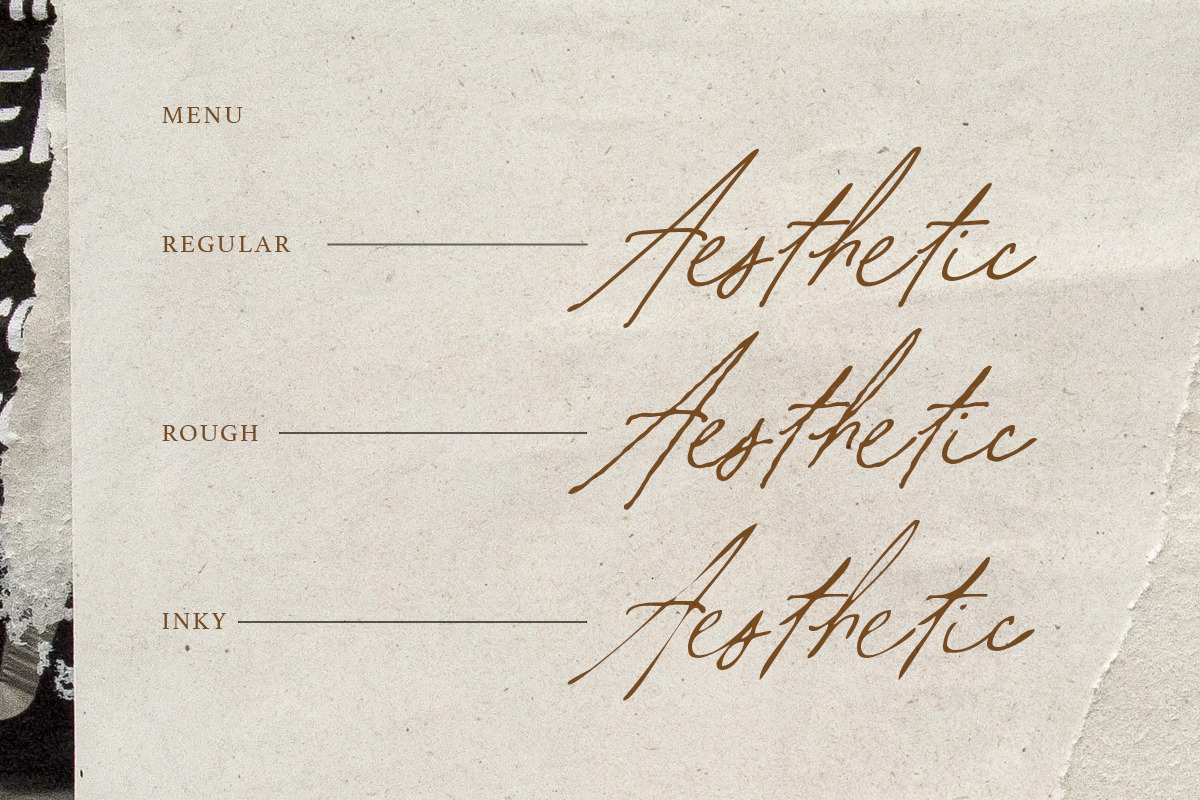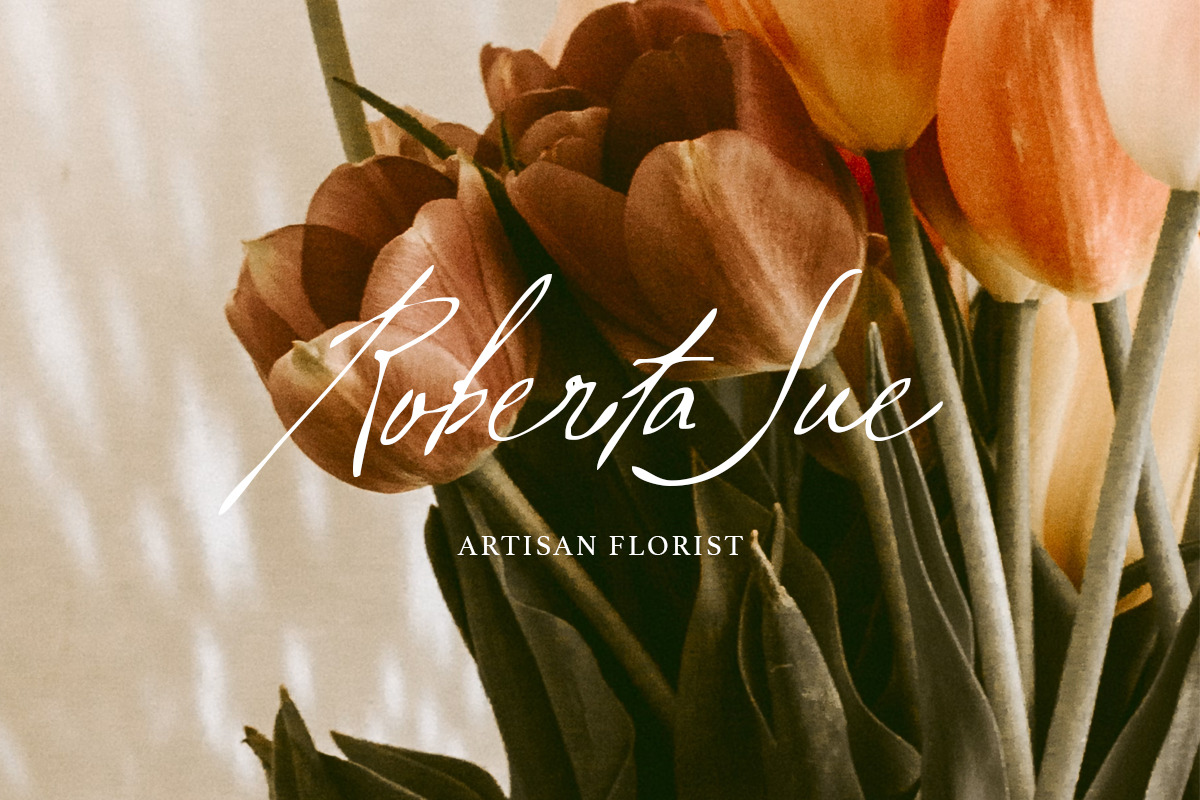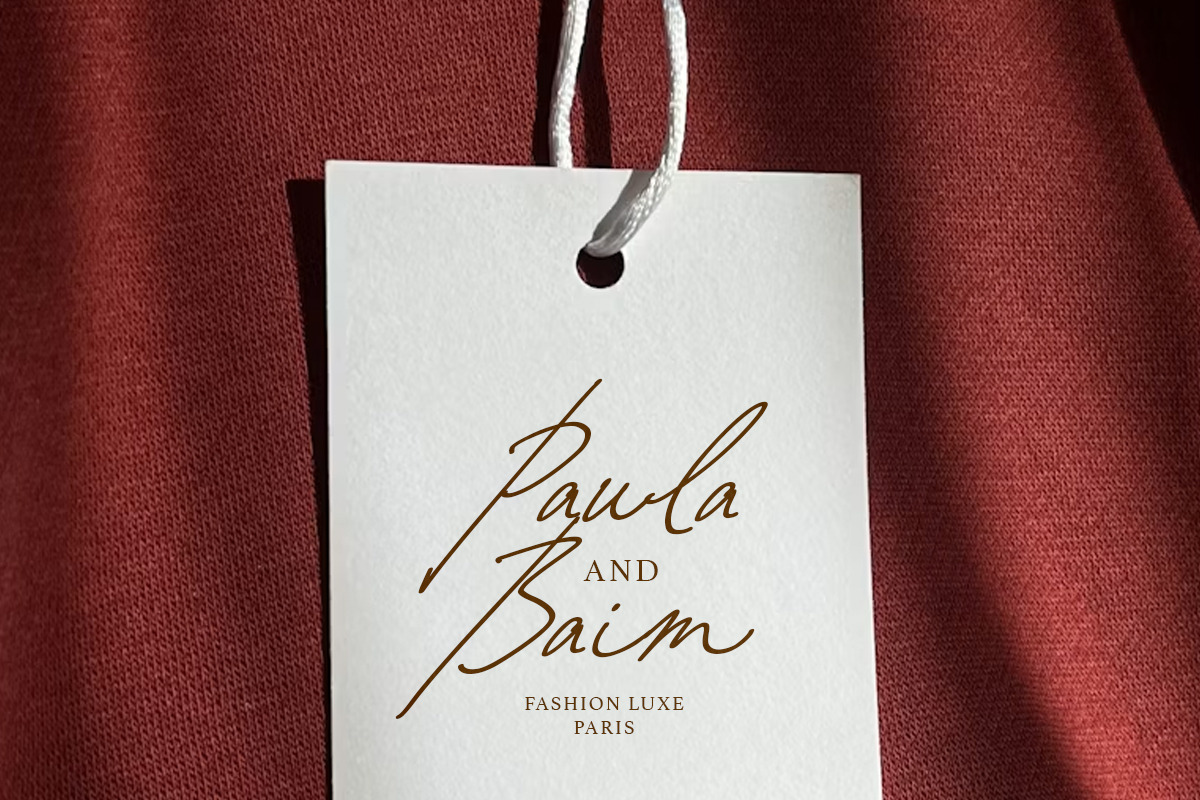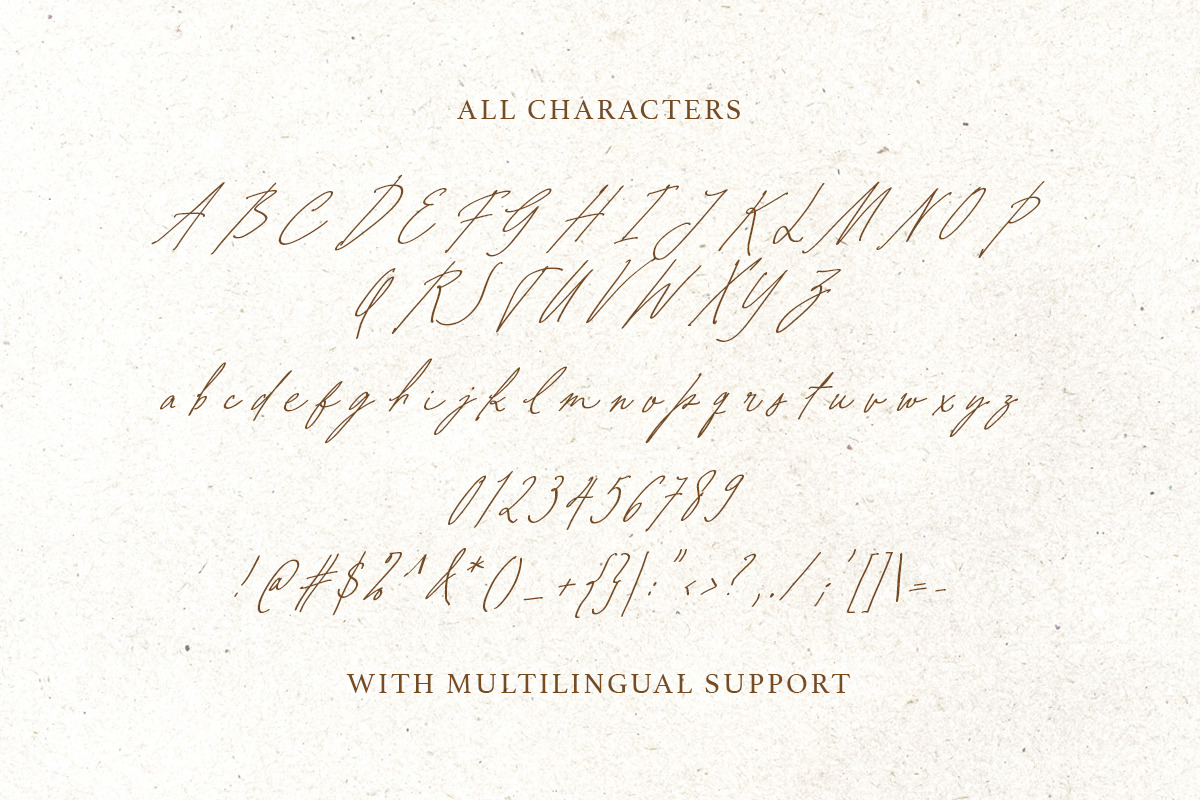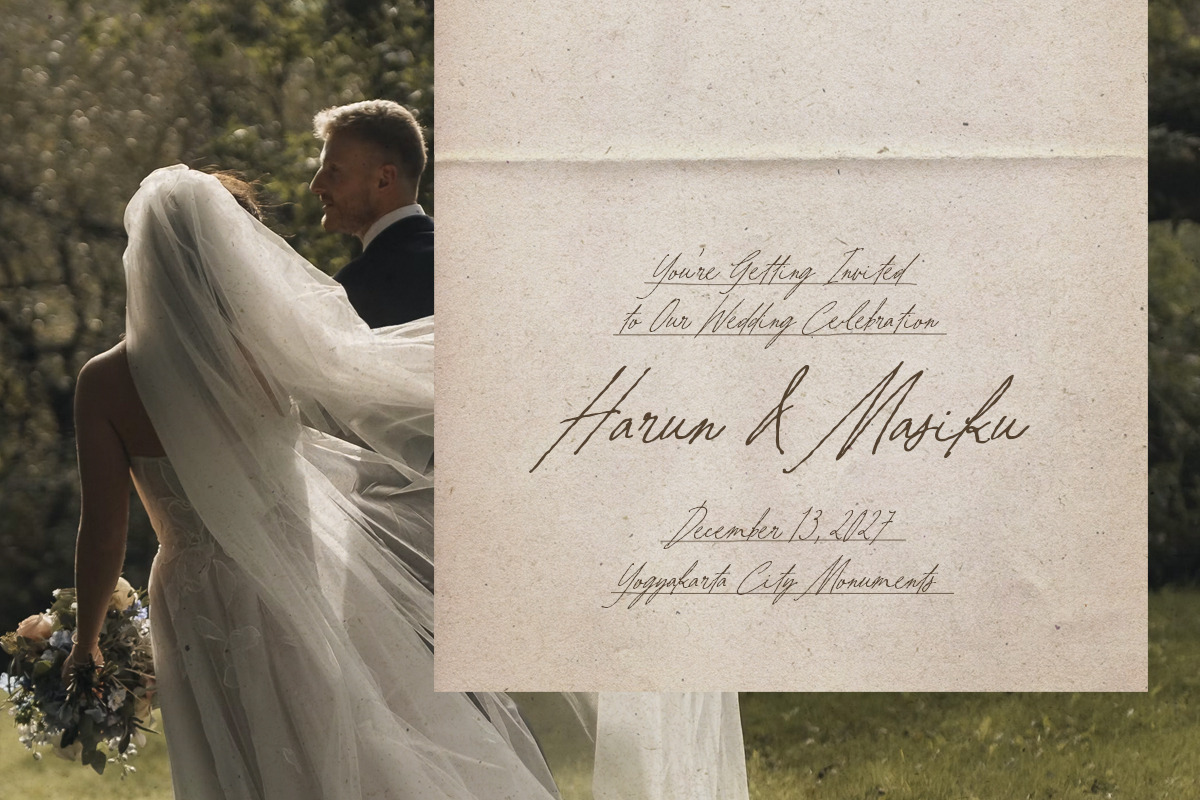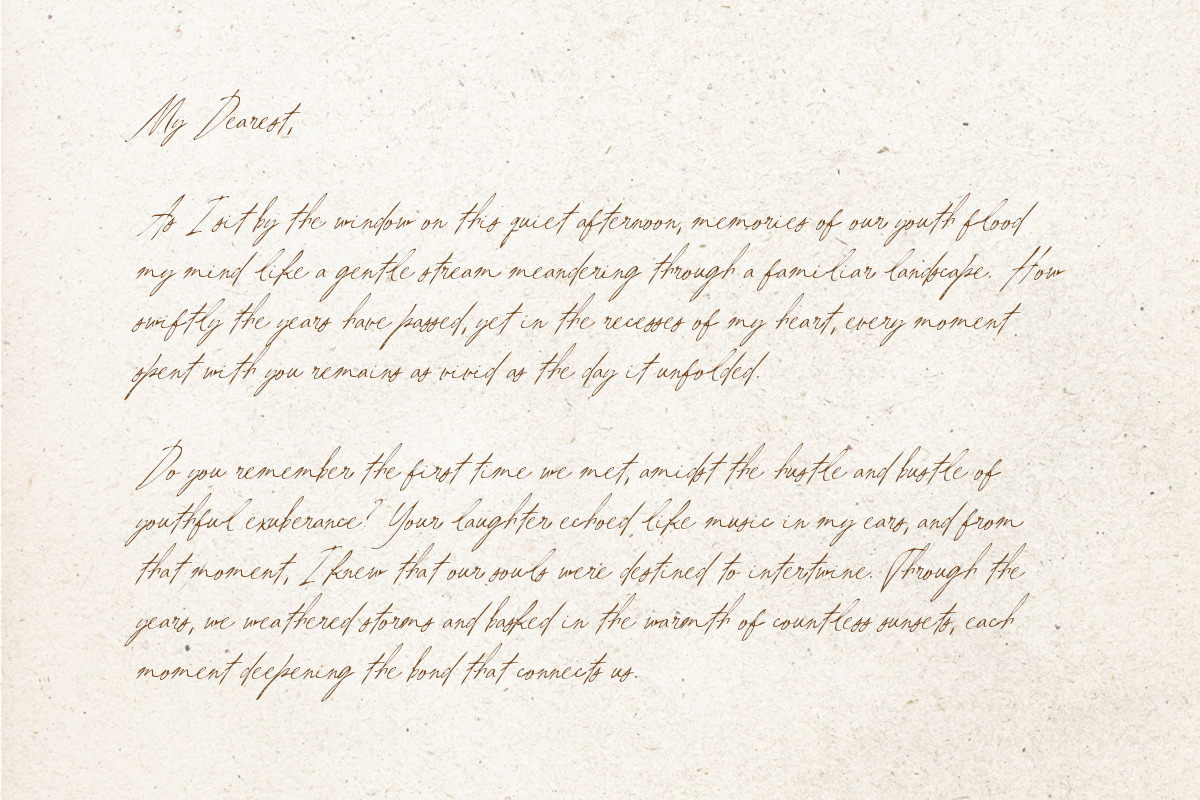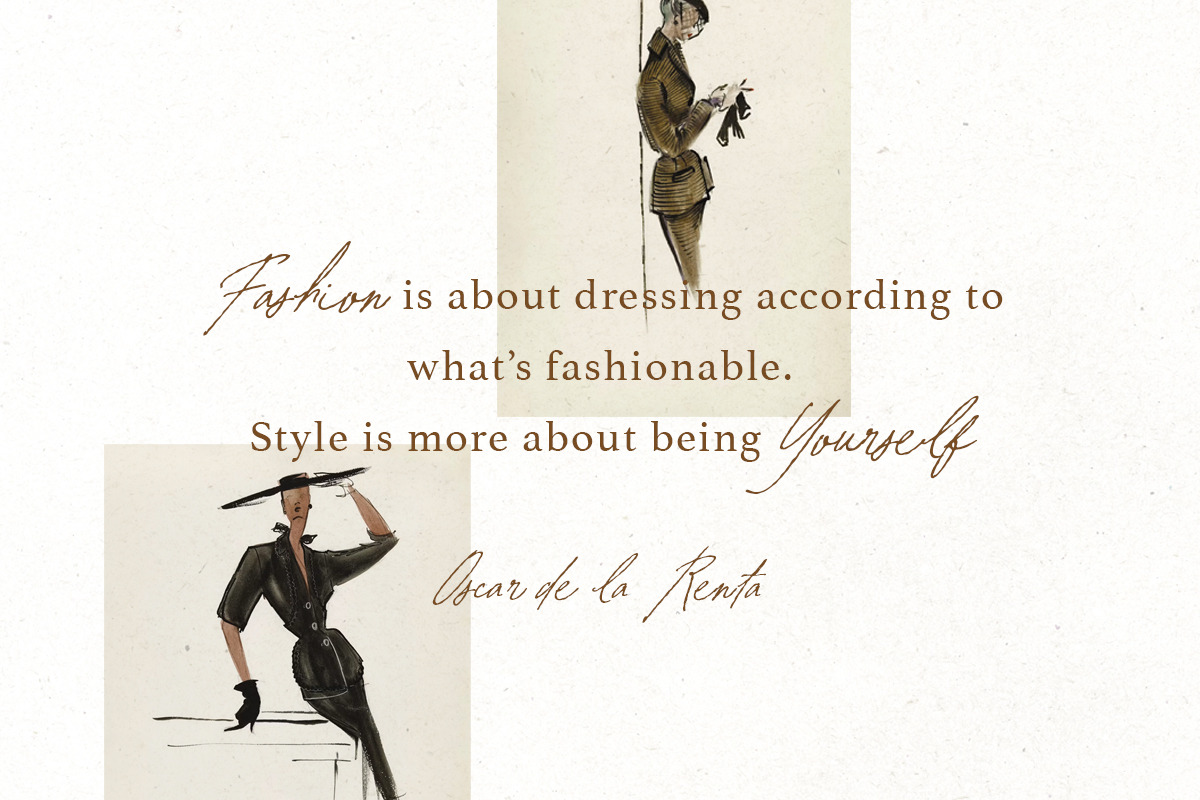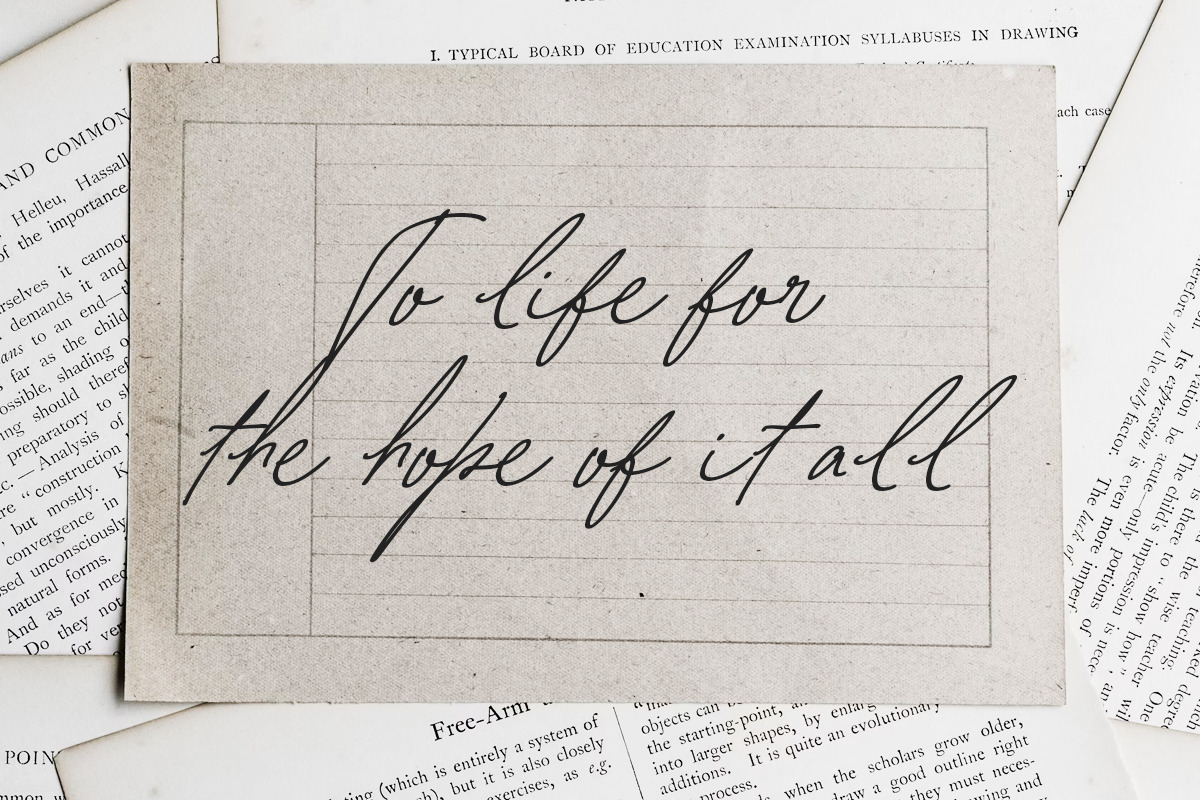
Aesthetic Shine Handwritten Script
Aesthetic Shine feels like handwriting captured in a quiet, beautiful moment—slender, flowing, and naturally expressive with a touch of raw romance. Its sweeping capitals, irregular strokes, and delicate rhythm create an intimate look that sits somewhere between elegant calligraphy and effortless handwritten notes. Available in Regular, Inky, and Rough styles, the family can shift from clean and refined to textured and wonderfully imperfect while keeping the same graceful character